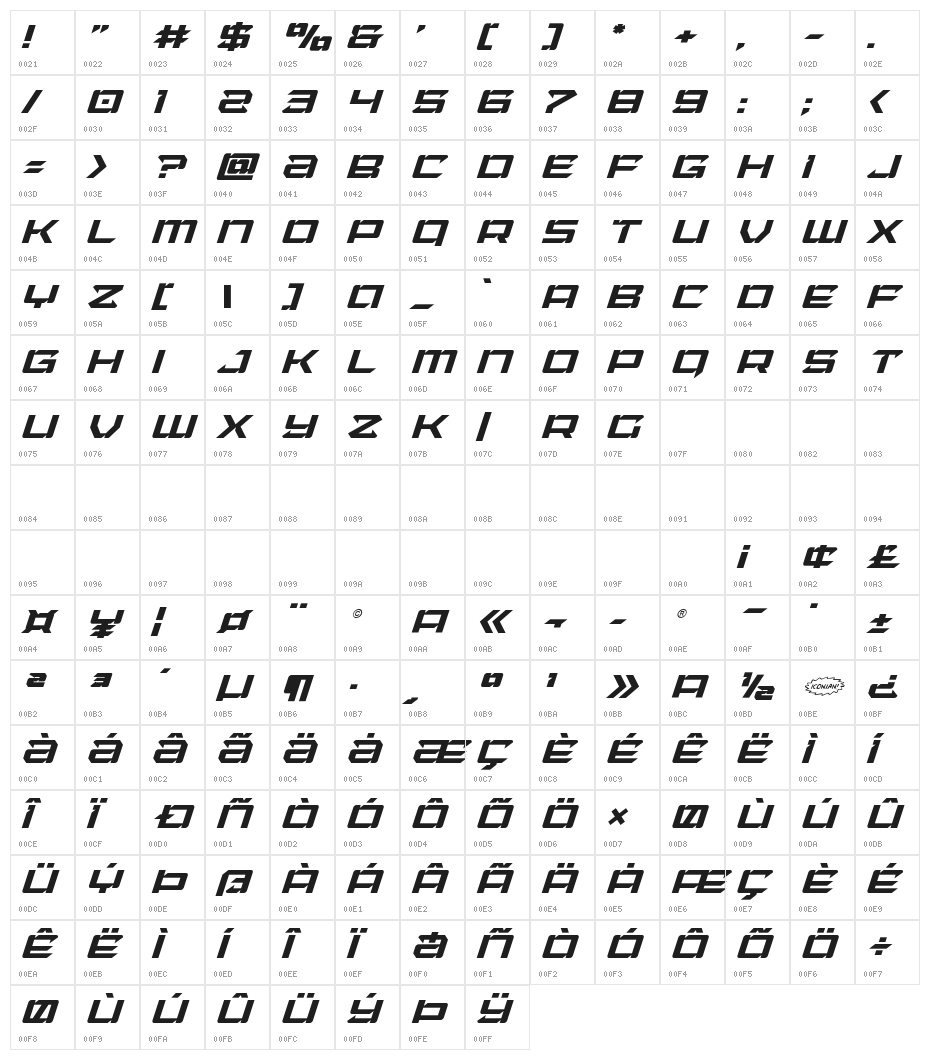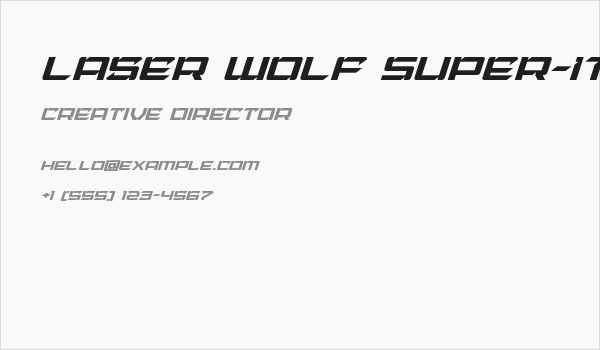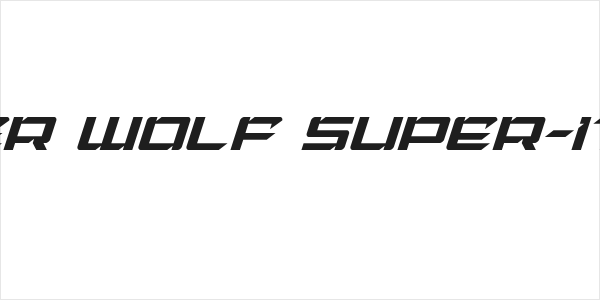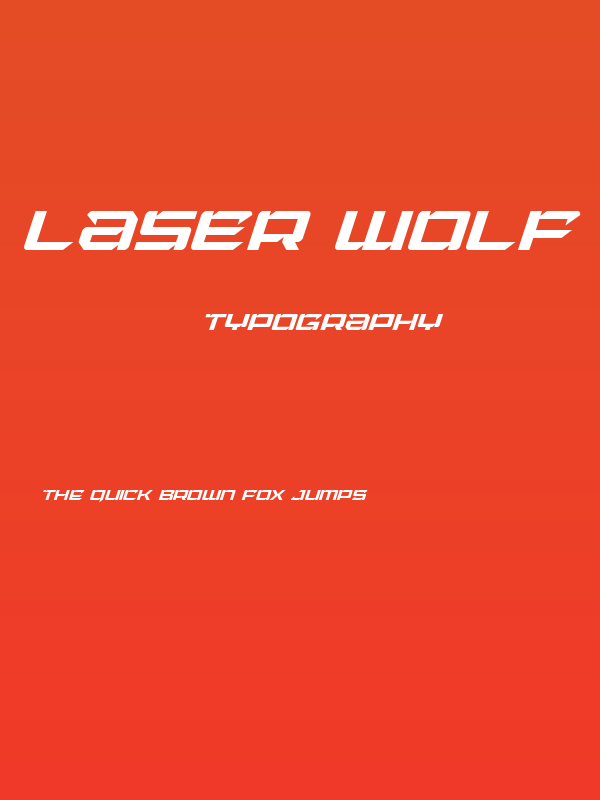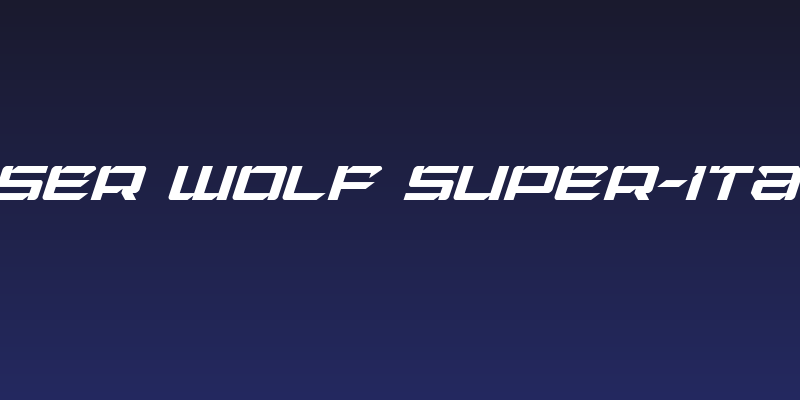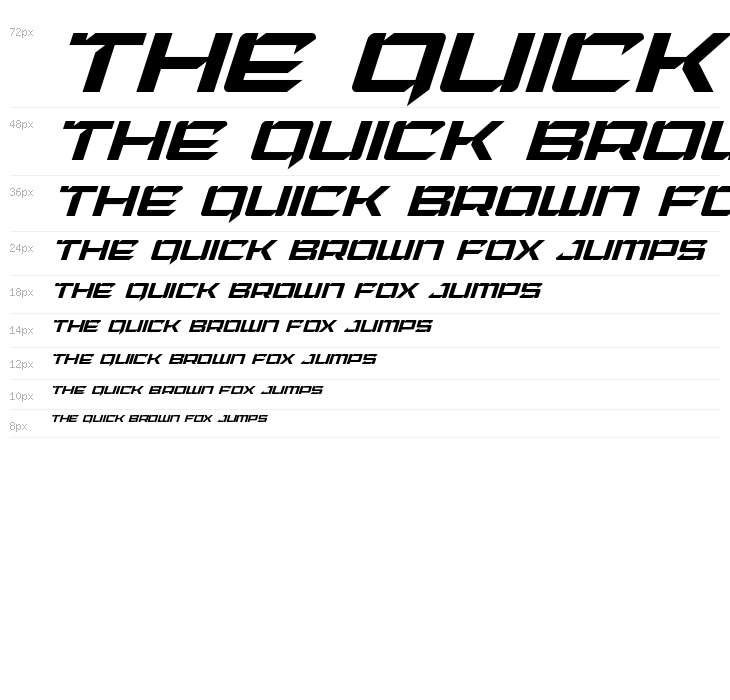
Laser Wolf Super-Italic Font
Laser Wolf Super-Italic Description
This font features a dynamic and futuristic design with sharp, angular lines and a forward-leaning italic style. The characters are bold and impactful, with a distinctive geometric appearance that suggests speed and modernity. The uppercase and lowercase letters maintain a consistent style, with the lowercase being slightly smaller in scale. Numbers and special characters follow the same angular theme, ensuring a cohesive look across all elements. The font's unique style makes it stand out, ideal for projects that require a strong visual impact.
| Proposed Projects | Ideal for sci-fi themed designs, video game titles, technology branding, and dynamic posters. |